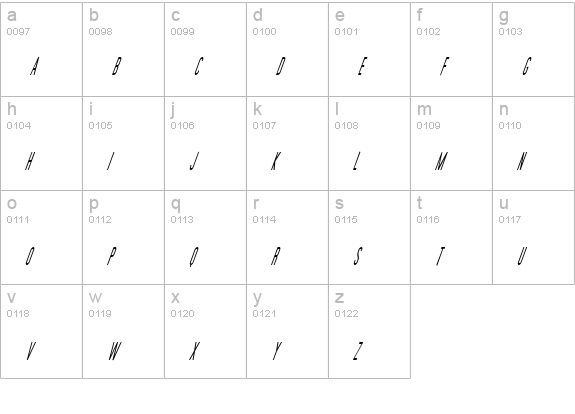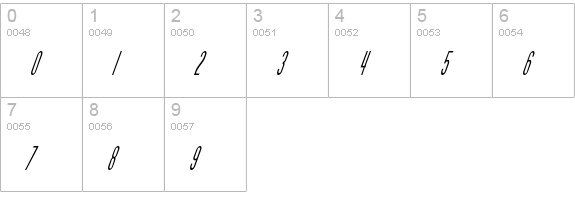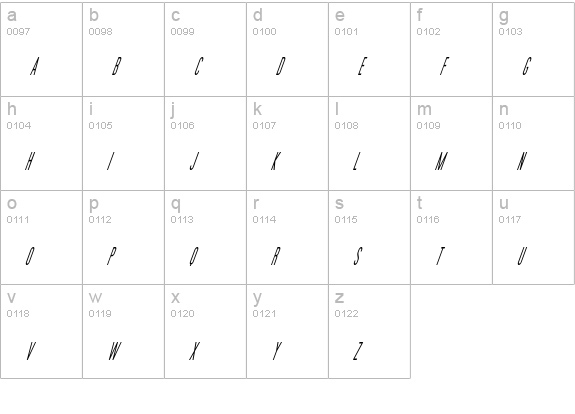
Movie Poster Condensed Italic is a distinctive, condensed-width, italic variant in the Movie typeface family \xE2\x80\x94 well suited to design and typography projects.
Introducing Movie Poster Condensed Italic font, a sleek and stylish typeface perfect for capturing the essence of excitement and drama on any design project. This font exudes a modern aesthetic with its condensed form and italicized slant, making it ideal for movie posters, promotional materials, and more. The Movie Poster Condensed Italic font features a unique blend of sharp angles and elegant curves, creating a visually engaging look that is sure to make a statement. Its versatile nature allows it to be used for a wide range of purposes, adding a touch of sophistication to any design. Best of all, Movie Poster Condensed Italic font is available for free download at FontsMarket.com. Don't miss out on the opportunity to elevate your projects with this striking and dynamic font. Download it today and unleash your creativity with Movie Poster Condensed Italic font!